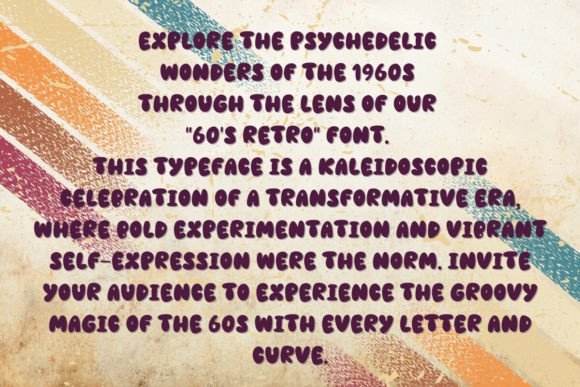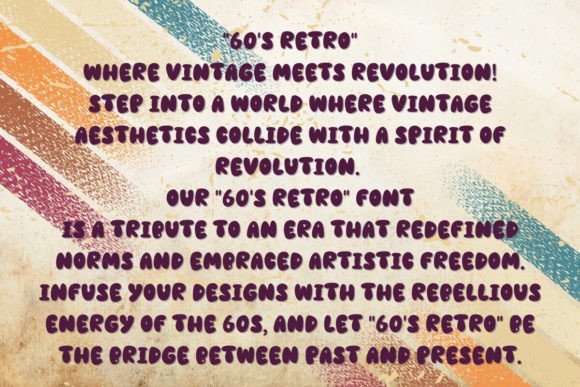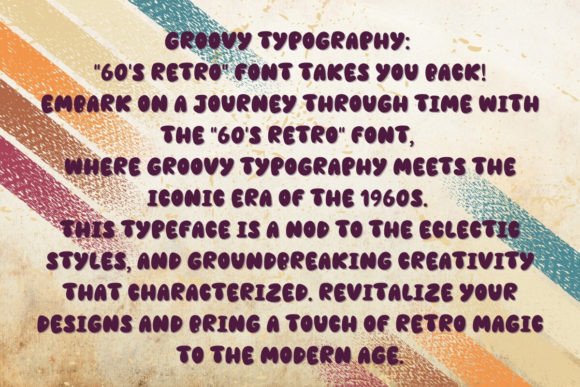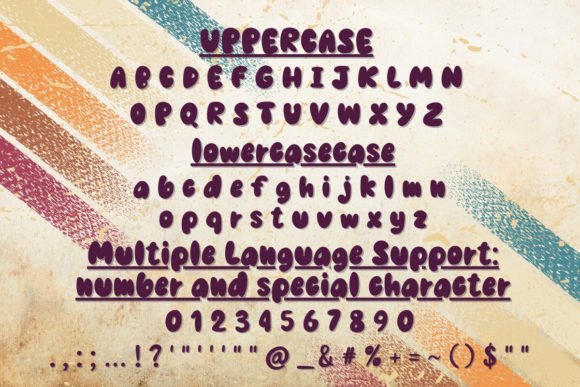
Get Ready to Groove with the 60’s Retro Font
As a designer, there’s nothing quite like the thrill of capturing a moment in time. Maybe it’s the way the light hits a model’s face, or the perfect balance of colors in a palette. But sometimes, it’s the typography that truly brings a design to life. And if you’re looking to tap into the vibrant spirit of the 1960s, you’re in luck.
Introducing the “60’s Retro Font”, a typeface that’s the perfect blend of nostalgia and modern flair. This font is designed to transport you back to an era of revolution, free love, and artistic exploration. With its authentic charm and retro vibe, it’s the perfect addition to any design project that needs a little extra something.
60’s Retro Font Key Features
- Unique Characteristics: The 60’s Retro Font features a distinctive, nostalgic aesthetic with bold lines, rounded edges, and a vibrant color palette, evoking the spirit of the 1960s.
- Legibility: Despite its vintage appearance, the font is highly legible, making it suitable for body text, headlines, and other types of typography.
- Customization: The font includes a range of ligatures and swashes, allowing designers to add a personal touch to their work and create unique, handcrafted typography.
60’s Retro Font Review
Overall, I think the 60’s Retro Font is a great addition to any design project that needs a touch of nostalgia. It’s a fun and playful font that instantly transports you back to the 1960s. Here are some things that work well:
- ✨ Unique character set: The font’s distinctive character set, including the swash and flair, adds a lot of personality to text.
- ✨ Versatility: 60’s Retro Font can be used for a wide range of projects, from posters to magazine headlines to packaging.
- ✨ High-quality design: The font is well-designed and looks great at various font sizes.
- ⚠️ Limited language support: The font may not support certain languages, which could be a problem for multilingual projects.
- ⚠️ May not be suitable for all audiences: The font’s playful and nostalgic feel may not be suitable for all audiences, such as professional or formal projects.
Overall, I think the 60’s Retro Font is a great choice for designers who want to add a touch of nostalgia to their projects. While it may have some limitations, the unique character set and versatility make it a great addition to any design library.
The 60’s Retro Font is commonly used in designs that evoke a retro or vintage vibe, such as:
– Music festival posters
– Retro-themed advertising
– Vintage-style invitations
– Retro-themed websites and blogs